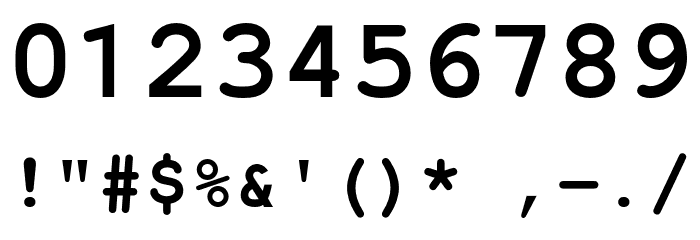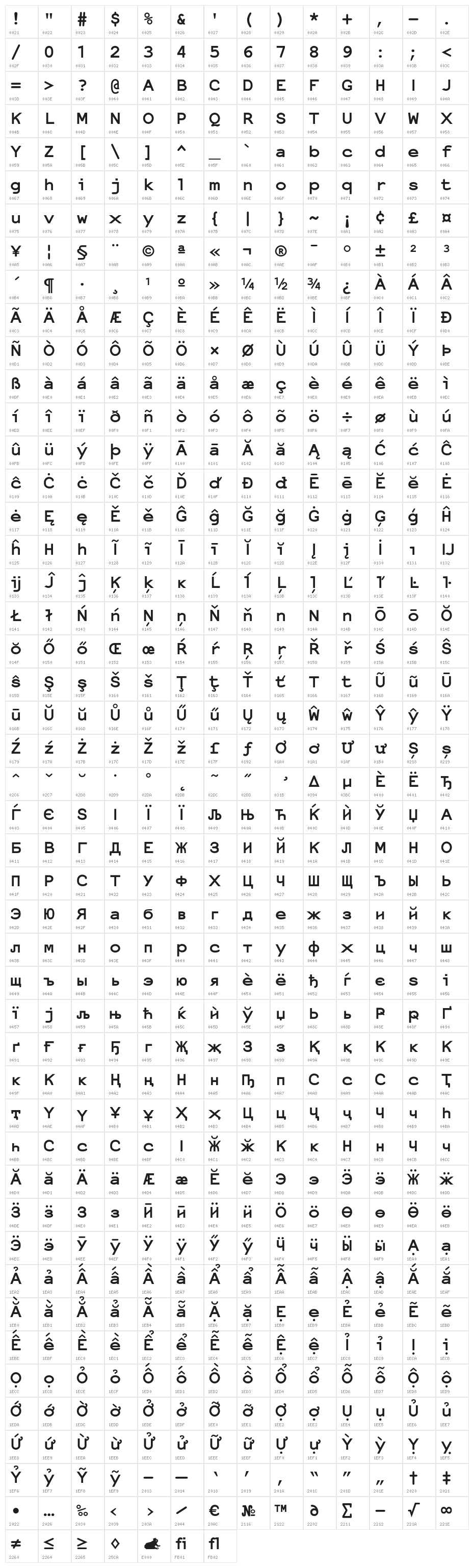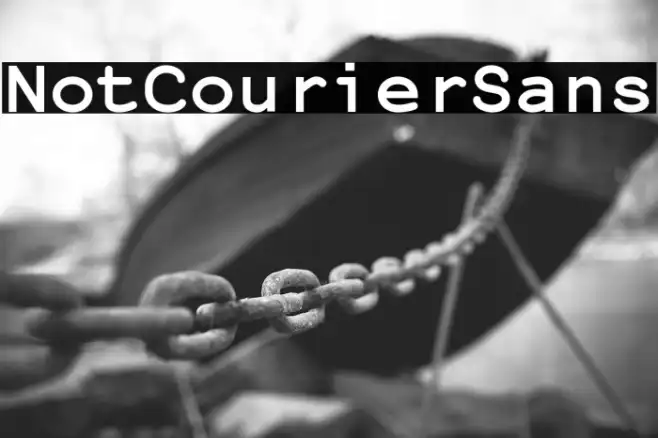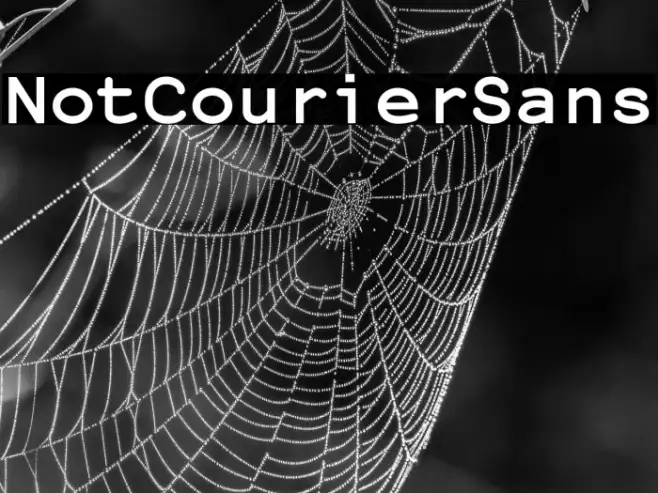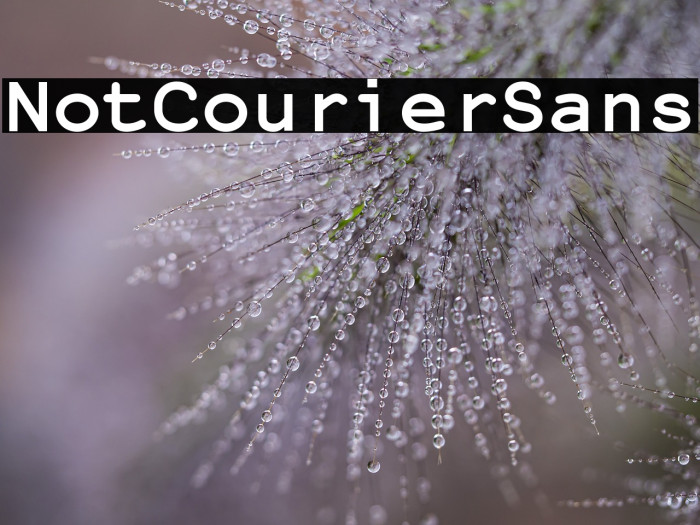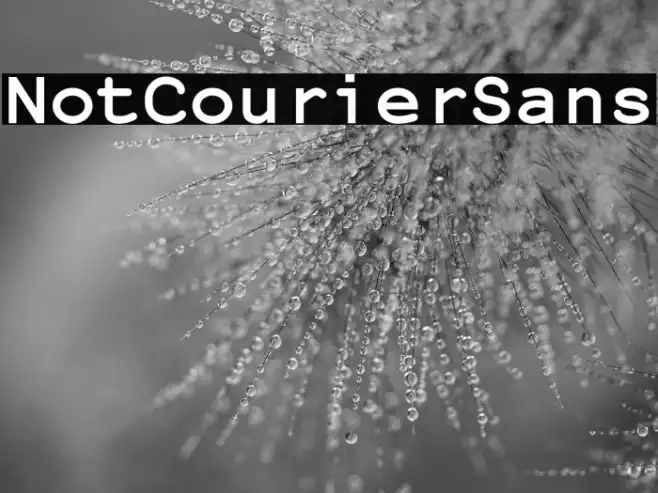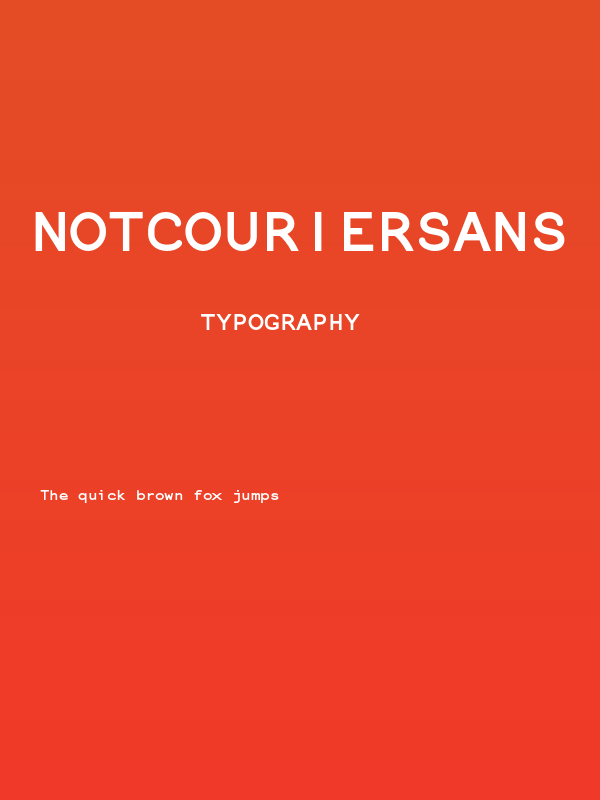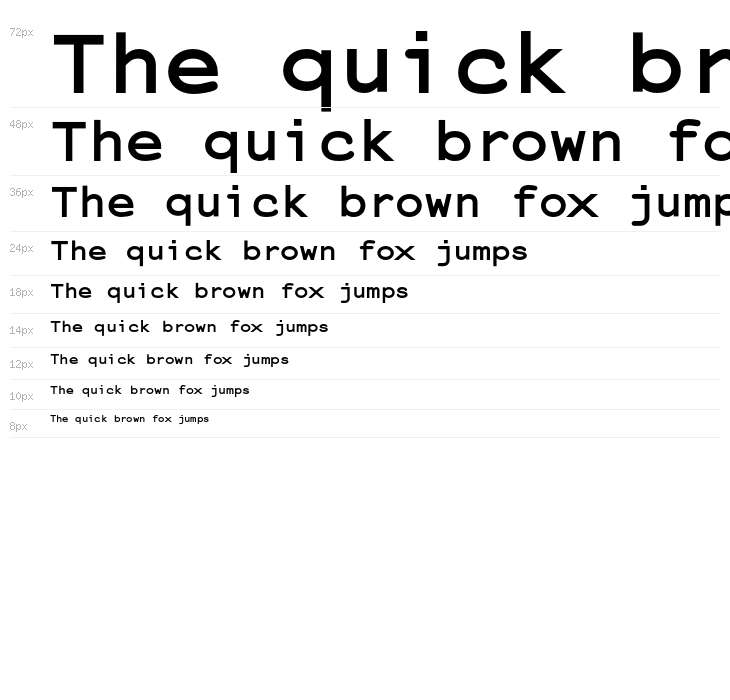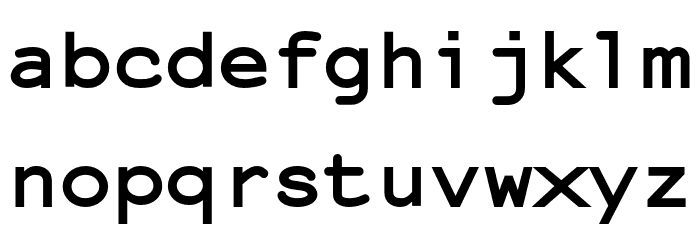
NotCourierSans Font
NotCourierSans Description
This typeface features a clean, modern aesthetic with a geometric structure. The characters are well-balanced, with uniform stroke widths that provide a consistent appearance. The uppercase letters are bold and assertive, while the lowercase letters maintain a friendly and approachable feel. The numerals are clear and easy to read, making them suitable for various applications. Special characters are distinct and well-integrated into the overall design, ensuring versatility in use. The font's simplicity and clarity make it ideal for digital and print media, offering excellent legibility across different sizes.
| Proposed Projects | Ideal for branding, web design, advertising, and editorial projects where clarity and modernity are key. |